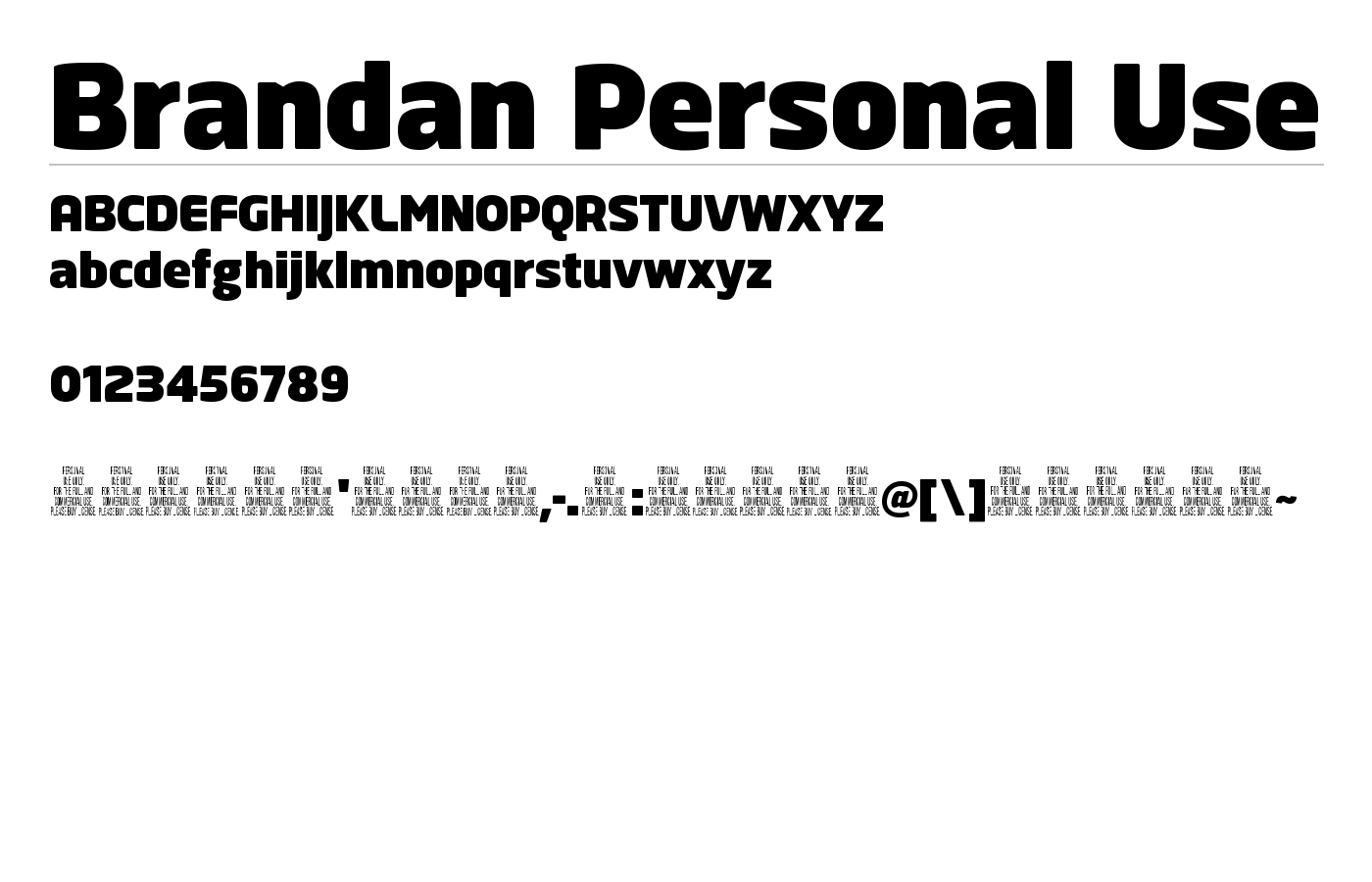
Brandan Personal Use is a bold, rounded sans serif font with a strong, friendly presence and a sturdy, compact design. Its thick strokes and high x-height give it excellent readability and an approachable, modern feel, making it ideal for headlines, logos, and branding that require a confident yet inviting look. This font works well in playful or contemporary contexts where clear, memorable typography is important.
Brandan Personal Use Font
About Brandan Personal Use Font
| Font family | Brandan Personal Use Font |
| Designer | Andrii Shevchyk |